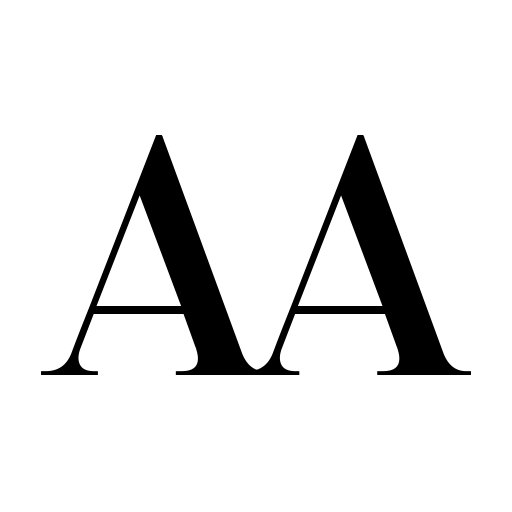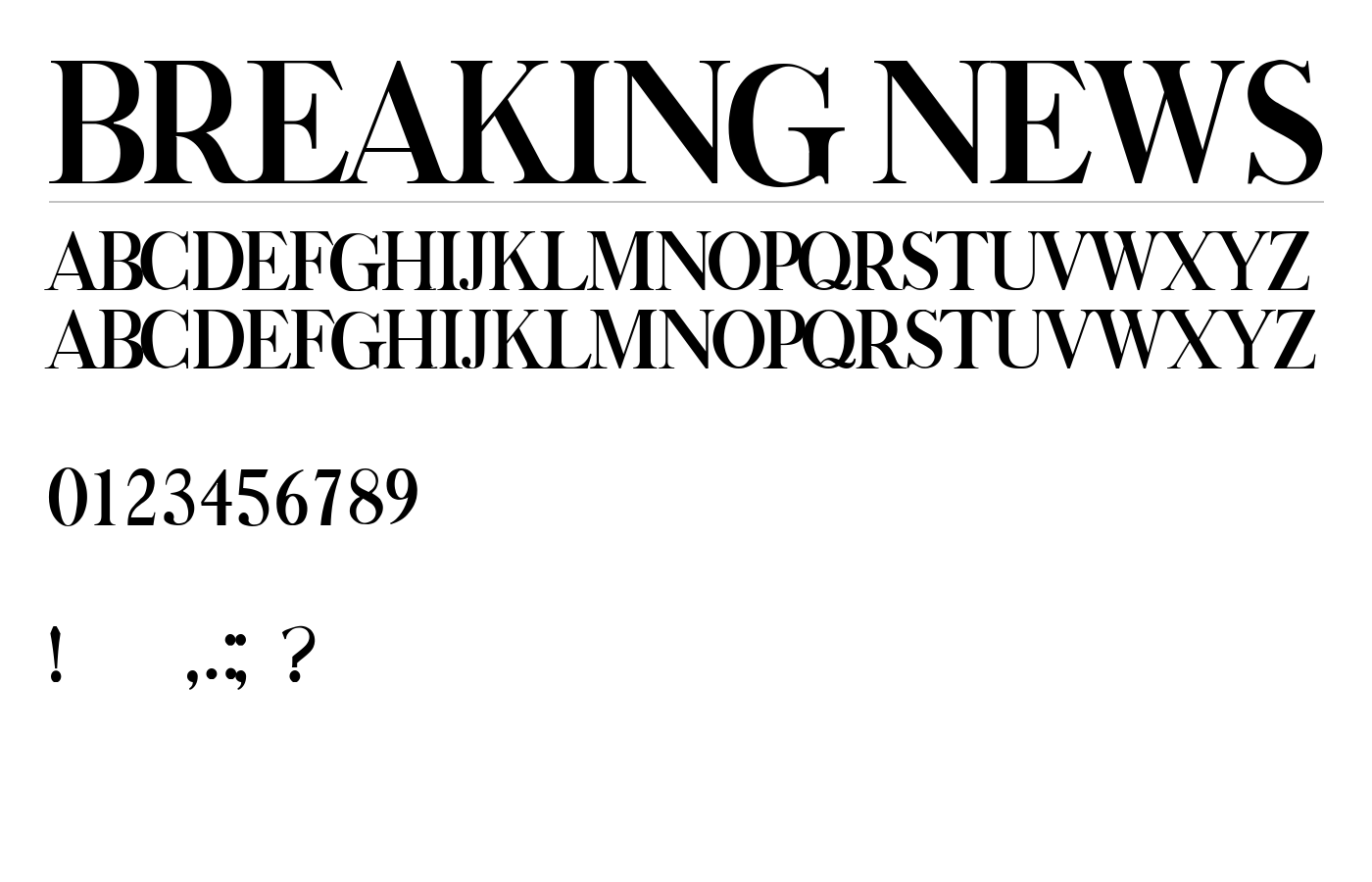
Breaking News Font is a classic serif typeface with a strong Didone influence, characterized by high contrast between thick and thin strokes and elegant, sharply bracketed serifs. Its tall, condensed letterforms and refined details give it a sophisticated, authoritative feel, making it ideal for headlines, editorial layouts, and luxury branding where a dramatic and polished impression is needed. This font works best in contexts that require clear readability combined with a stylish, timeless aesthetic.
Breaking News Font
About Breaking News Font
| Font family | Breaking News Font |